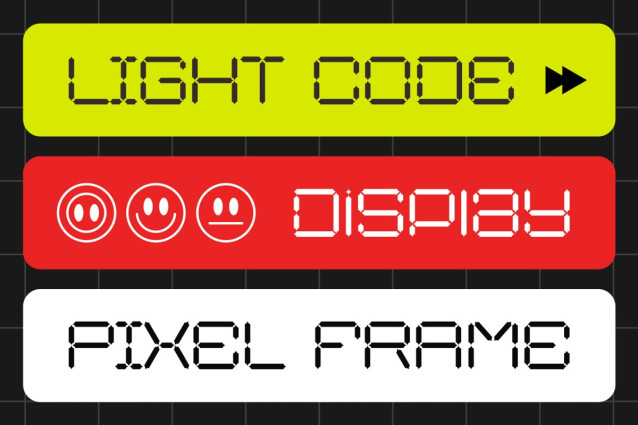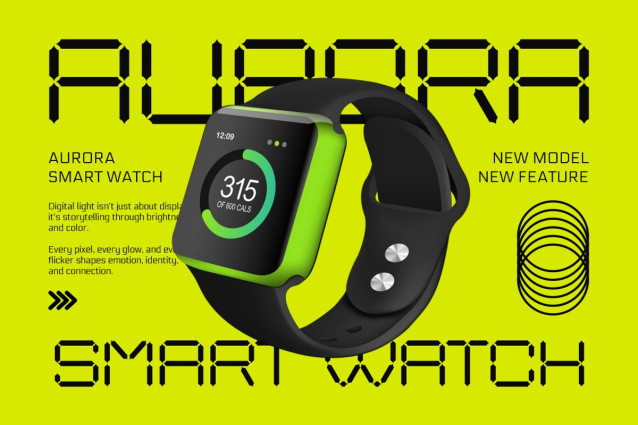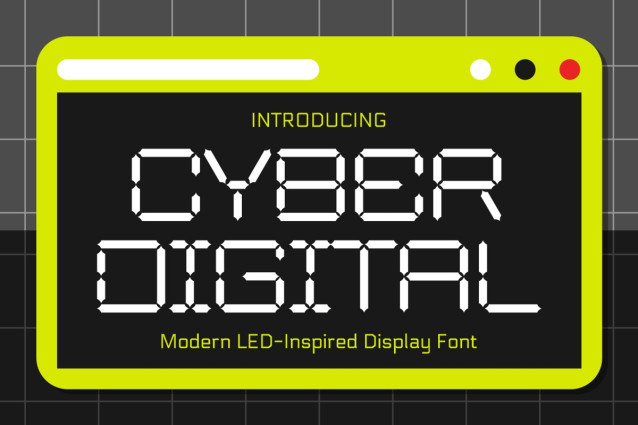
Cyber Digital Font
Cyber Digital Font is a clean and highly structured display typeface inspired by digital segment systems. Each character is constructed from precise geometric strokes with consistent spacing and modular proportions. The letterforms feel tall and balanced, with medium stroke weight that stays clear at large and medium sizes. Rounded segment joints soften the rigid geometry, while straight edges keep the overall look technical and exact. The font maintains uniform height across uppercase characters, creating a strong visual rhythm and stable alignment. Numbers follow the same segmented logic, making them instantly readable and visually consistent. Punctuation and symbols are designed to match the digital structure, ensuring cohesion across full layouts.
The style is modern, futuristic, and tech-driven, with a clear digital identity. Cyber Digital Modern LED-Inspired Display Font fits projects that require a bold, electronic presence without unnecessary decoration. It works best as a display font for logos, branding systems, headlines, posters, advertisements, packaging, and product titles. The font also suits user interface visuals, tech presentations, event graphics, movie titles, magazine covers, and book covers. Its clean segmentation allows strong readability while delivering a sharp digital mood. Cyber Digital Modern LED-Inspired Display Font supports designers who want clarity, precision, and a modern tech atmosphere. The structured forms help messages stand out in fast-paced visual environments. The font pairs well with minimal layouts, modern sans-serif body text, and digital-themed designs. Cyber Digital Modern LED-Inspired Display Font brings a confident, forward-looking character that enhances branding, promotional materials, and creative projects focused on technology and innovation.